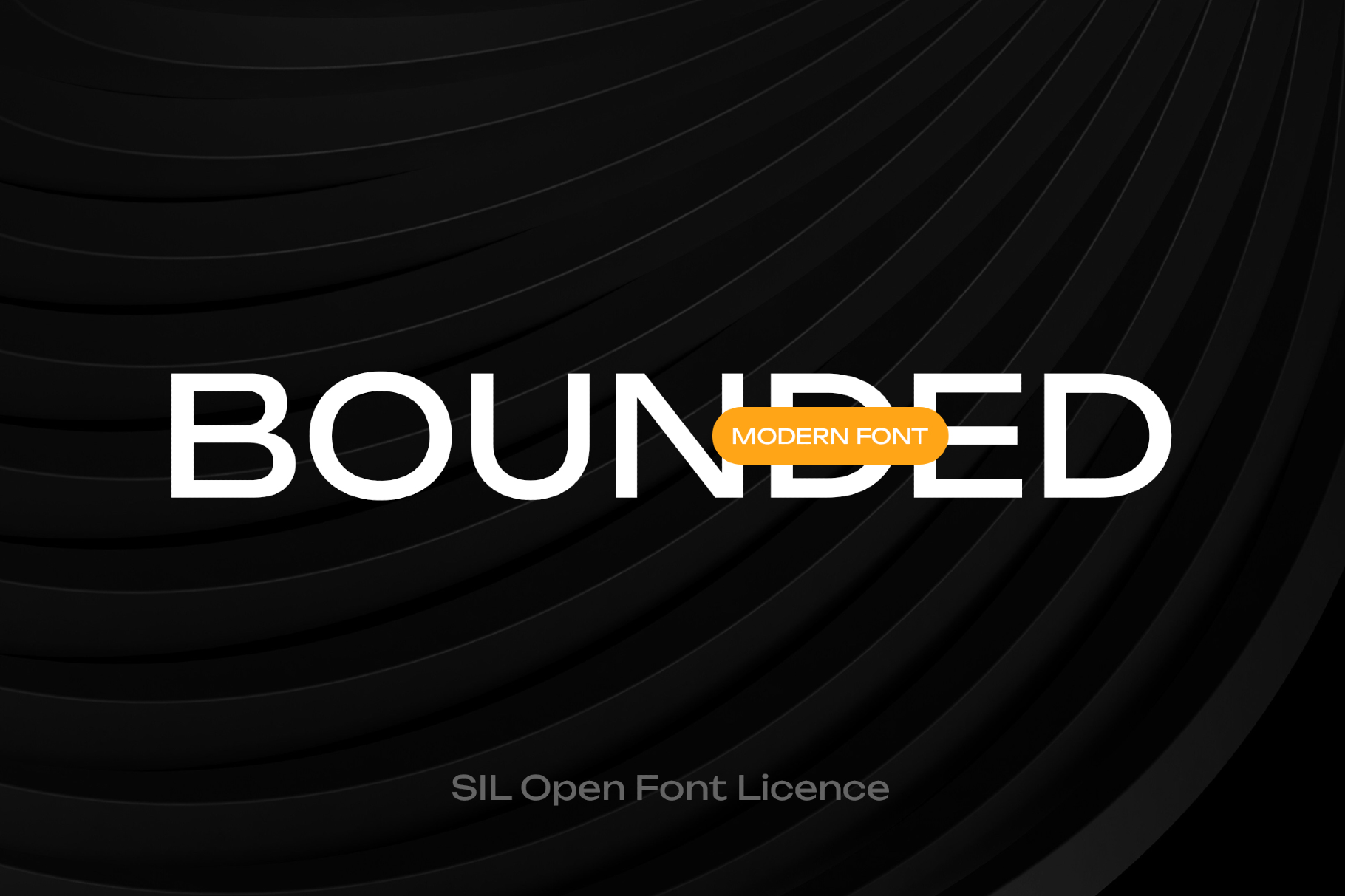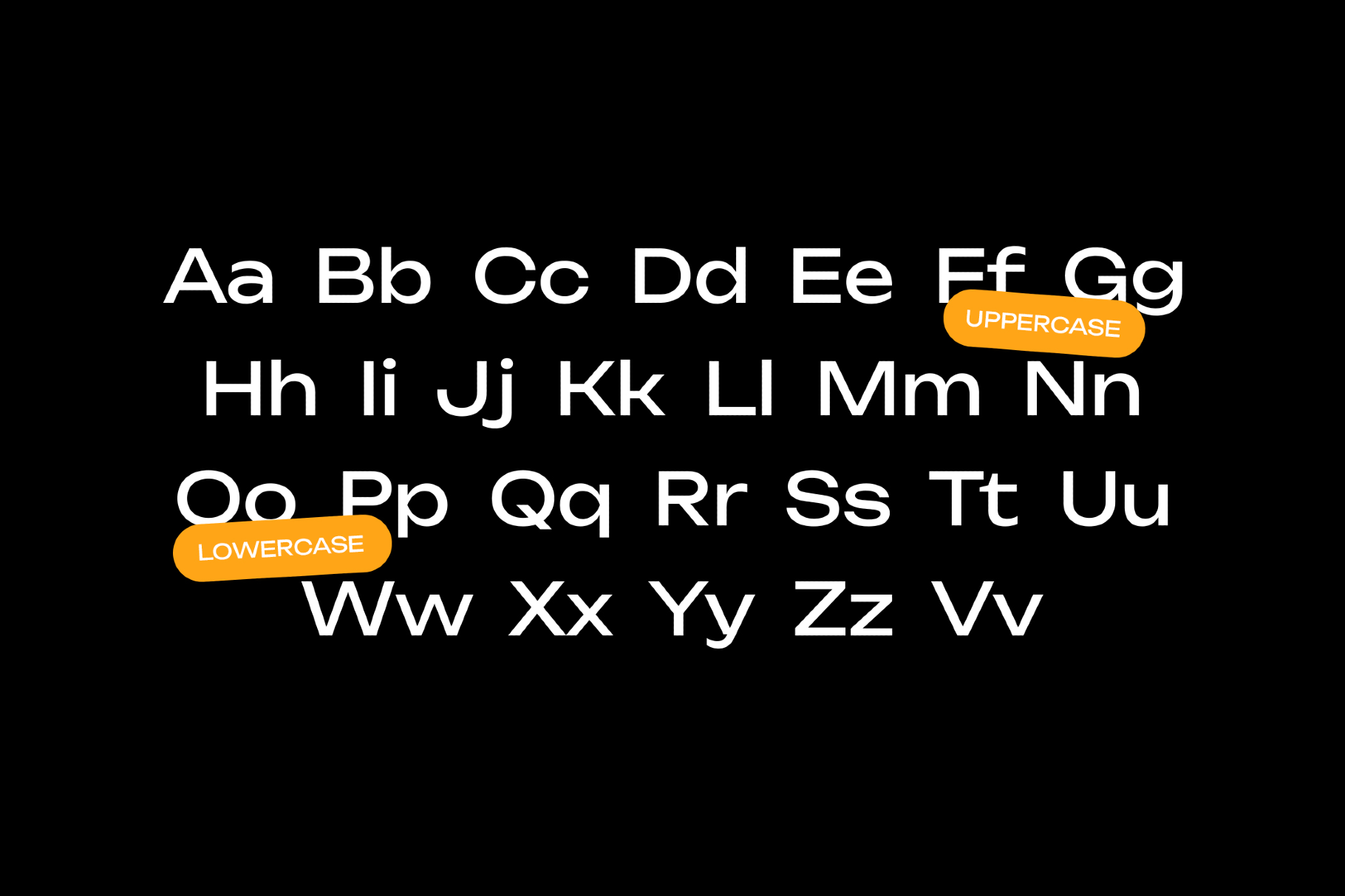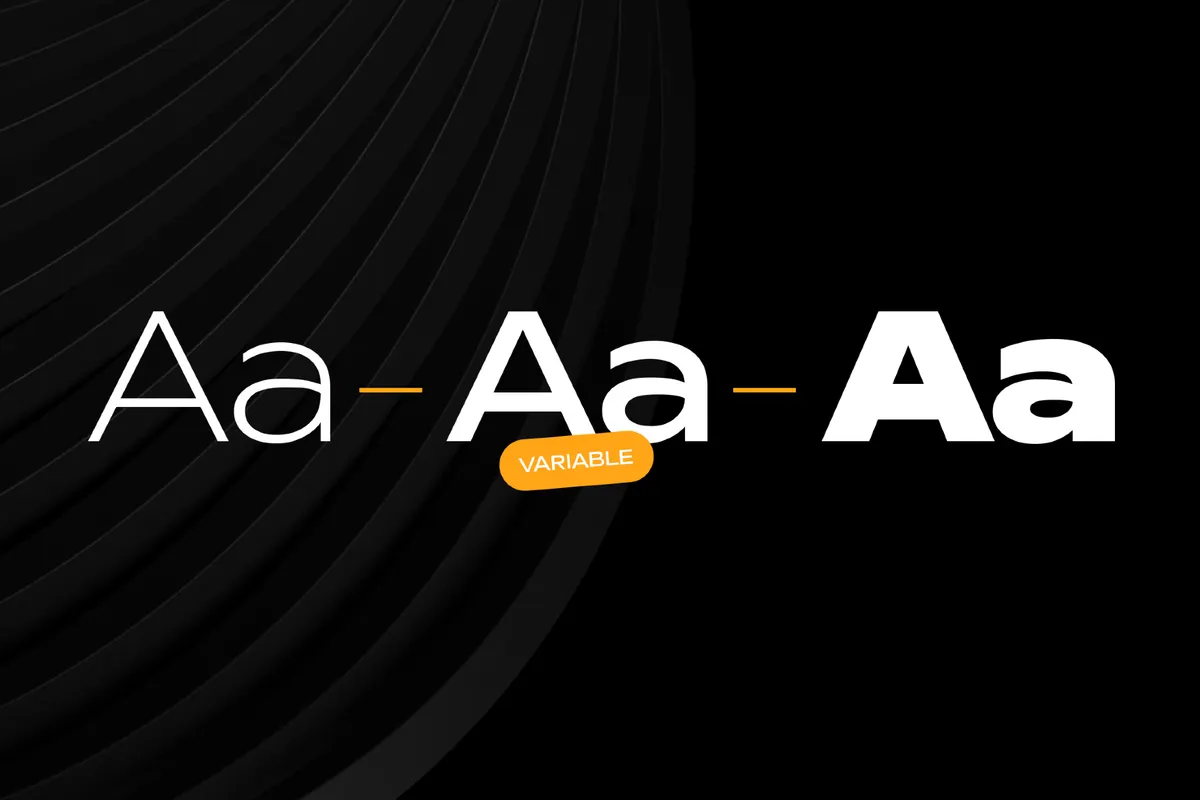
Bounded Typeface
Variable
Bounded is a geometric poster sans font with clean, thick strokes and squared curves. It comes with a variable weight range in order to diligently echo mid-century European corporate typography and early digital logotypes. It suits well identity systems, editorial headlines, tech branding wayfinding systems, apps and web interfaces, product packaging, and social media titles.
- Four styles.
- Numbers, punctuation, dingbats, and symbols.
- Multilingual support across extended Latin, Cyrillic, and Greek scripts.
- Ligatures, stylistic alternates.